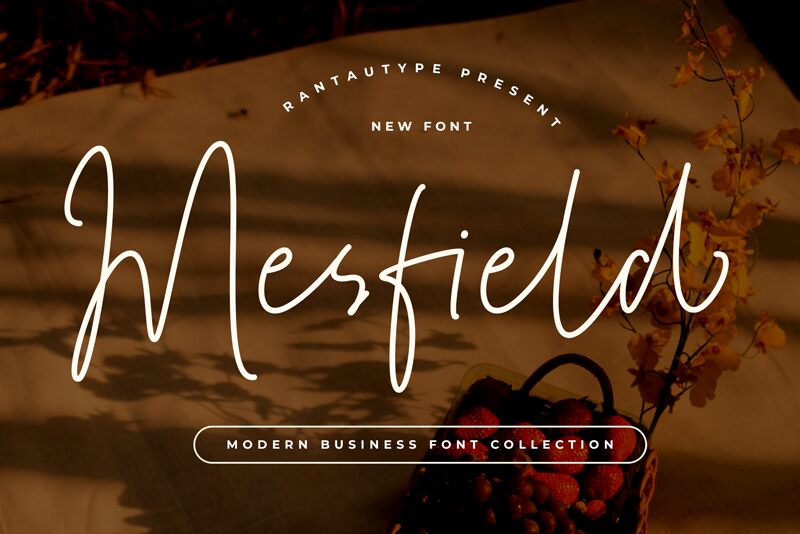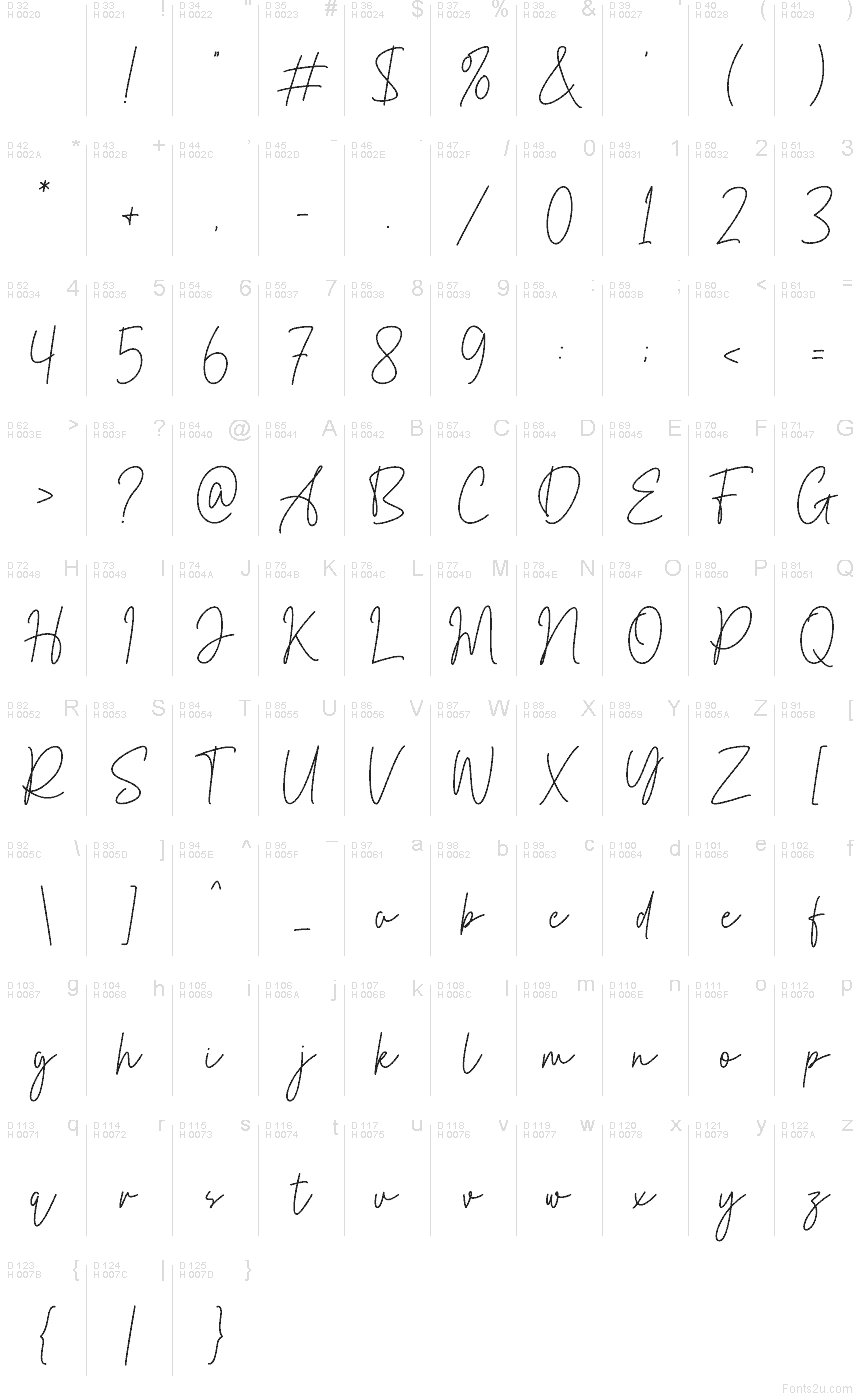
Mesfield
Mesfield font by RantautypeStudio is a free handwritten signature typeface that captures the ease of ink gliding across smooth paper. Its letters are tall, airy, and slightly irregular, with gentle loops and confident flicks that feel like a real, practiced signature rather than a stiff script. The thin, inky strokes keep it light and breathable, so it carries personality without overpowering your layout.
Using Mesfield, this free font shines on personal branding where you want a name or tagline to feel genuinely “yours”—think logos, watermark signatures, social media headers, packaging, blogs, and wedding stationery. It works beautifully when you let it run large for names and pair it with a clean, simple sans-serif for supporting text.